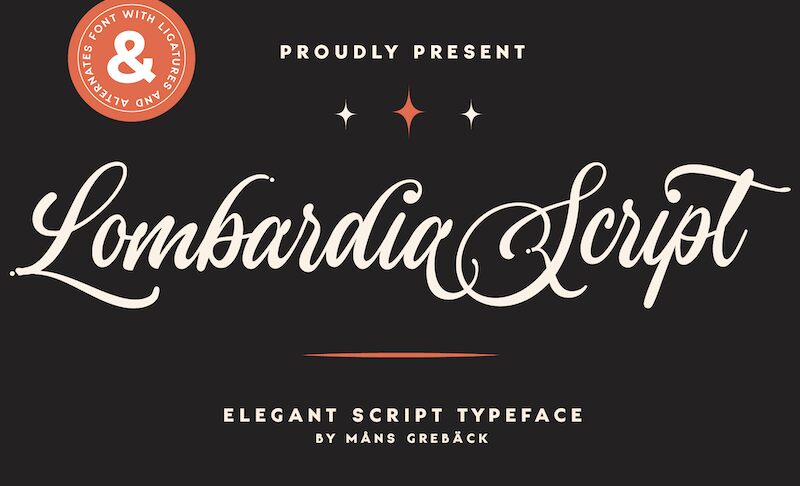
Lombardia Script, designed by the talented Mans Greback, is a stunning calligraphy font that adds an elegant touch to any project. With its semi-light weight and flowing curves, this font exudes sophistication and charm. Perfect for wedding invitations, greeting cards, or branding materials for high-end businesses such as fashion or beauty industries. Lombardia Script will bring a touch of class to any project it graces. Whether it's used in headlines or body text, this font is sure to make a statement and leave a lasting impression on your audience.
Use underscores _ anywhere in a word to make a swash.
Example: Wonder_woman
Use multiple underscores to make different swashes.
Example: Extra__vagant